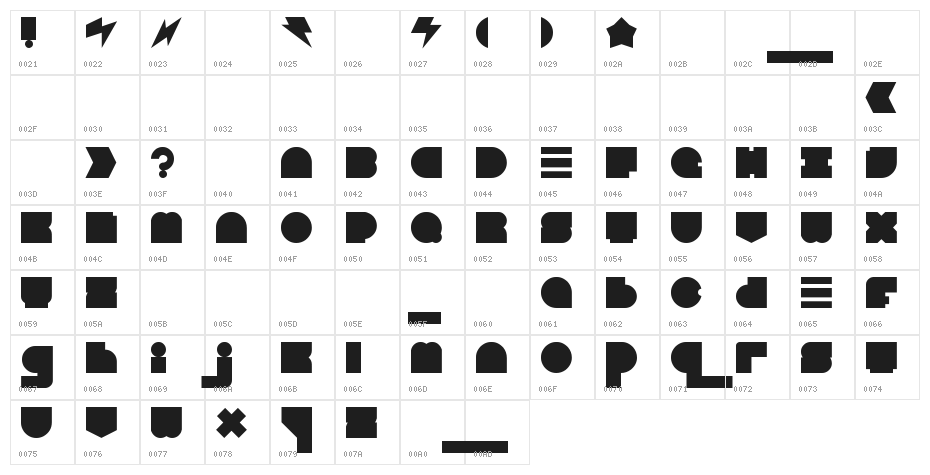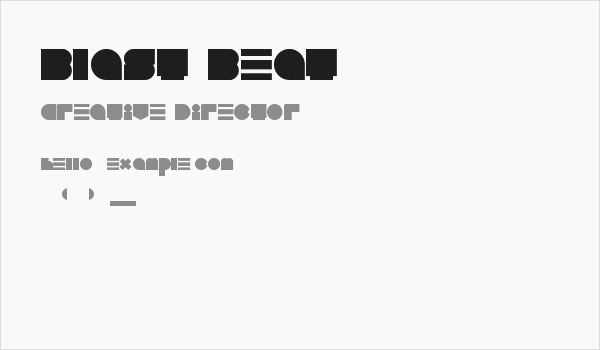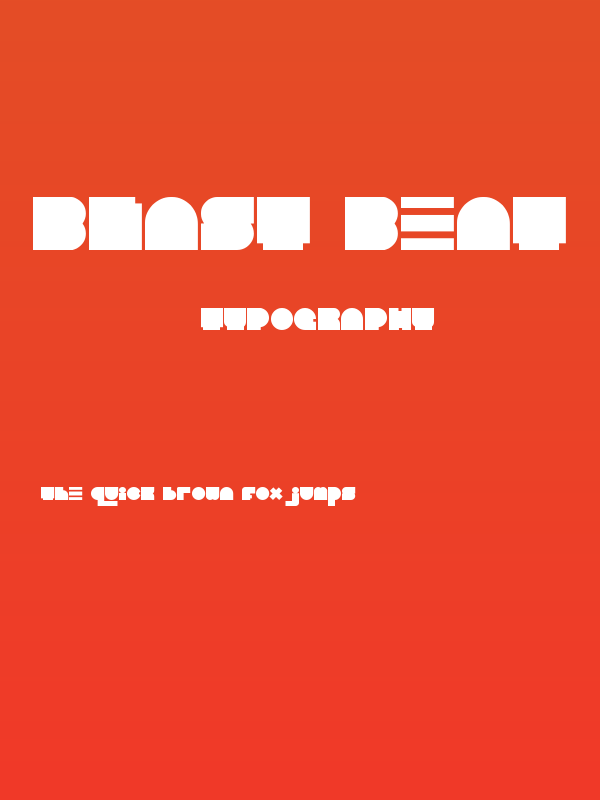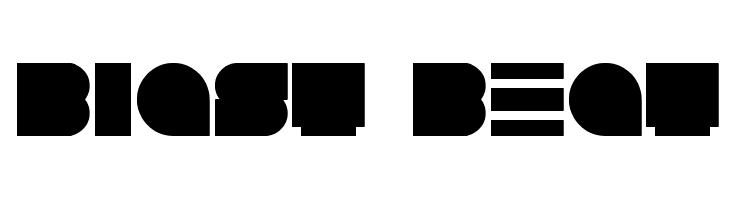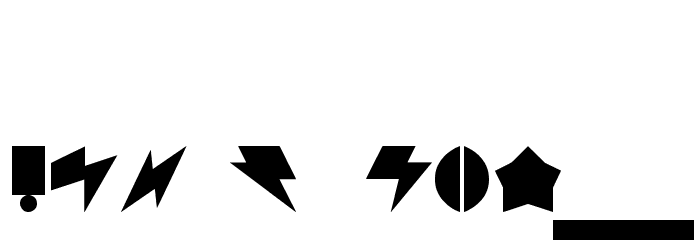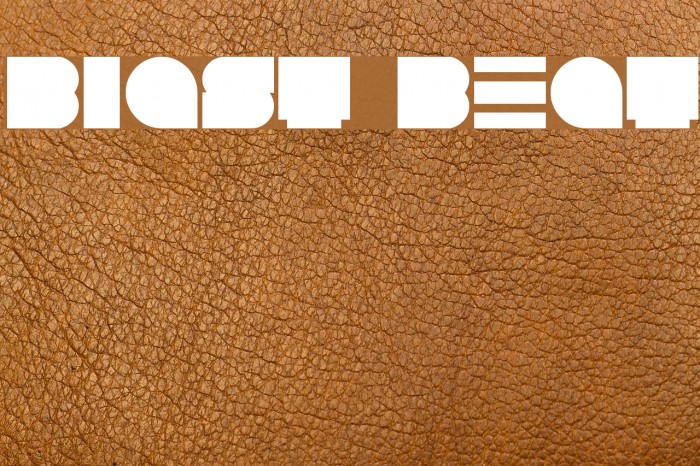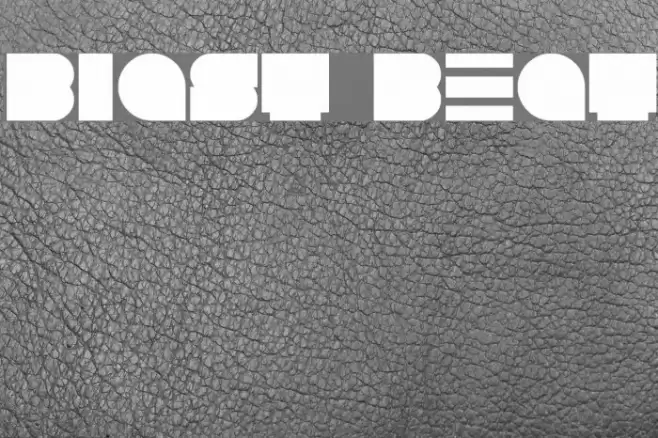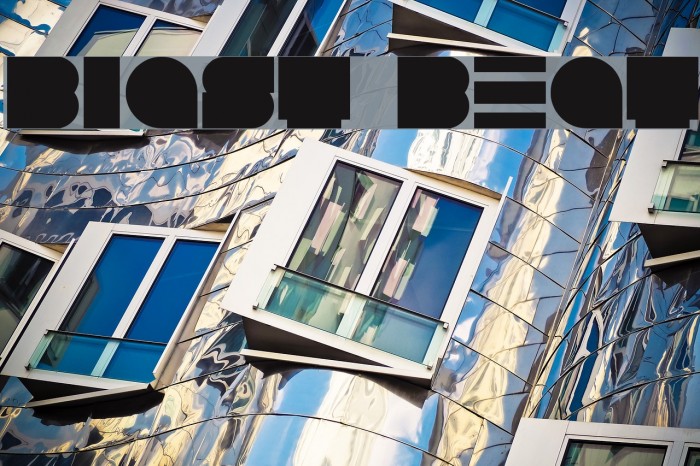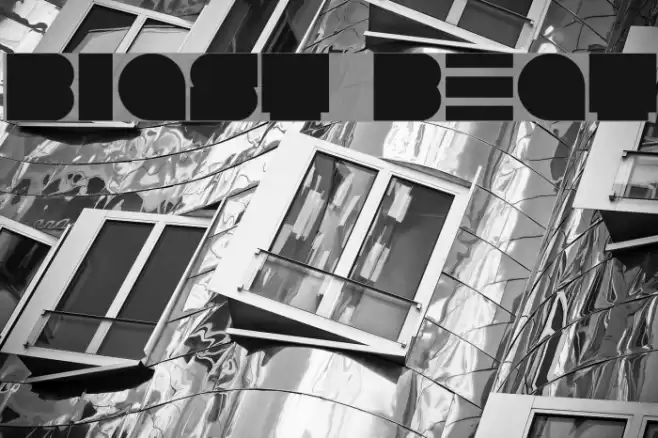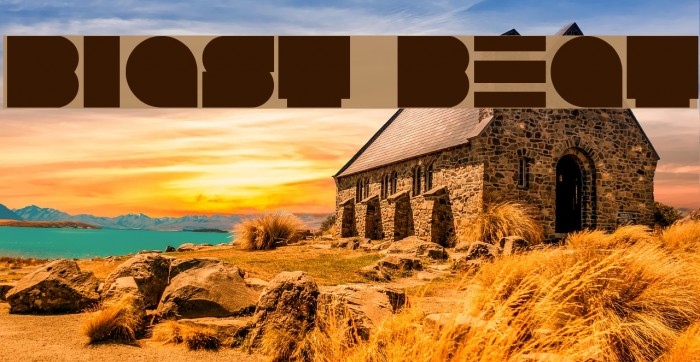
Blast Beat Font
Blast Beat Description
This font features a bold and geometric design, characterized by its blocky and angular letterforms. The uppercase and lowercase letters share a consistent style, with sharp edges and solid fills that create a strong visual impact. The numbers and special characters maintain this bold aesthetic, adding to the font's cohesive appearance. The overall design is modern and striking, making it suitable for projects that require a strong visual presence. The font's unique style is ideal for creating eye-catching headlines, posters, and branding materials.
| Proposed Projects | Ideal for headlines, posters, branding, and any project requiring a bold, modern aesthetic. |